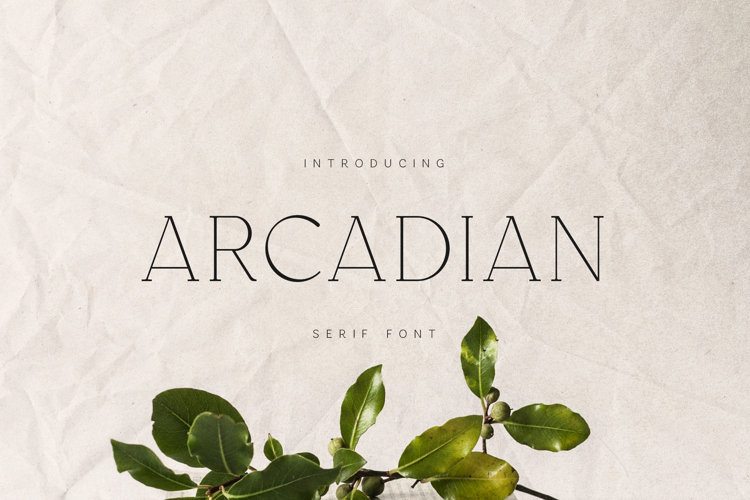
Arcadian Elegant Classic Serif Font
Arcadian is an elegant classic serif font inspired by timeless typography, humanist proportions, and quiet refinement. With its balanced letterforms, gentle contrast, and graceful curves, Arcadian delivers a calm, literary voice that feels both traditional and contemporary.
Designed for editorial layouts, books, poetry, magazines, branding, cultural projects, invitations, and thoughtful visual systems, Arcadian excels where clarity, beauty, and restraint matter most. Its clean structure and soft rhythm create a natural reading flow while maintaining a refined, premium appearance.
Arcadian works beautifully for both display text and short passages, making it a versatile serif for designers who value sophistication without ornamentation. The subtle character details give it warmth and personality without ever feeling decorative or loud.
The font includes uppercase and lowercase letters, numerals, punctuation, symbols, and extensive multilingual support, making it suitable for professional and international use.
If you’re looking for a serif font that feels timeless, poetic, and quietly confident, Arcadian offers classic typography with modern sensitivity.